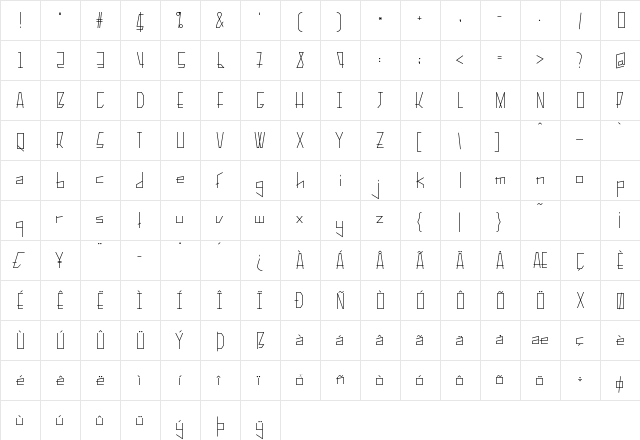
PelanquierThin Regular
| Designer | Max Infeld |
Design Context for PelanquierThin Typeface
PelanquierThin takes a measured approach to typography — its balanced proportions and neutral character make it a reliable workhorse for both digital and print work. Its slender proportions lend an understated elegance to any composition.